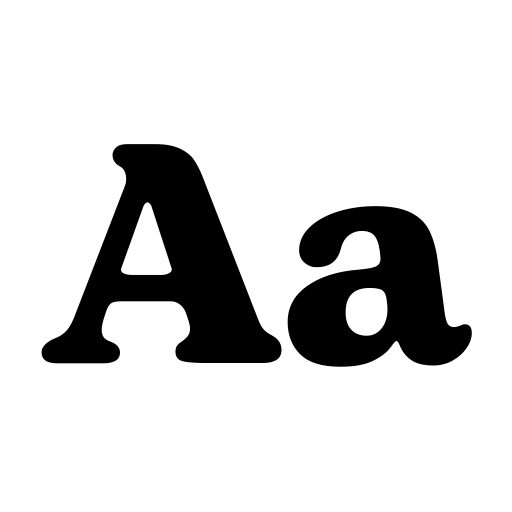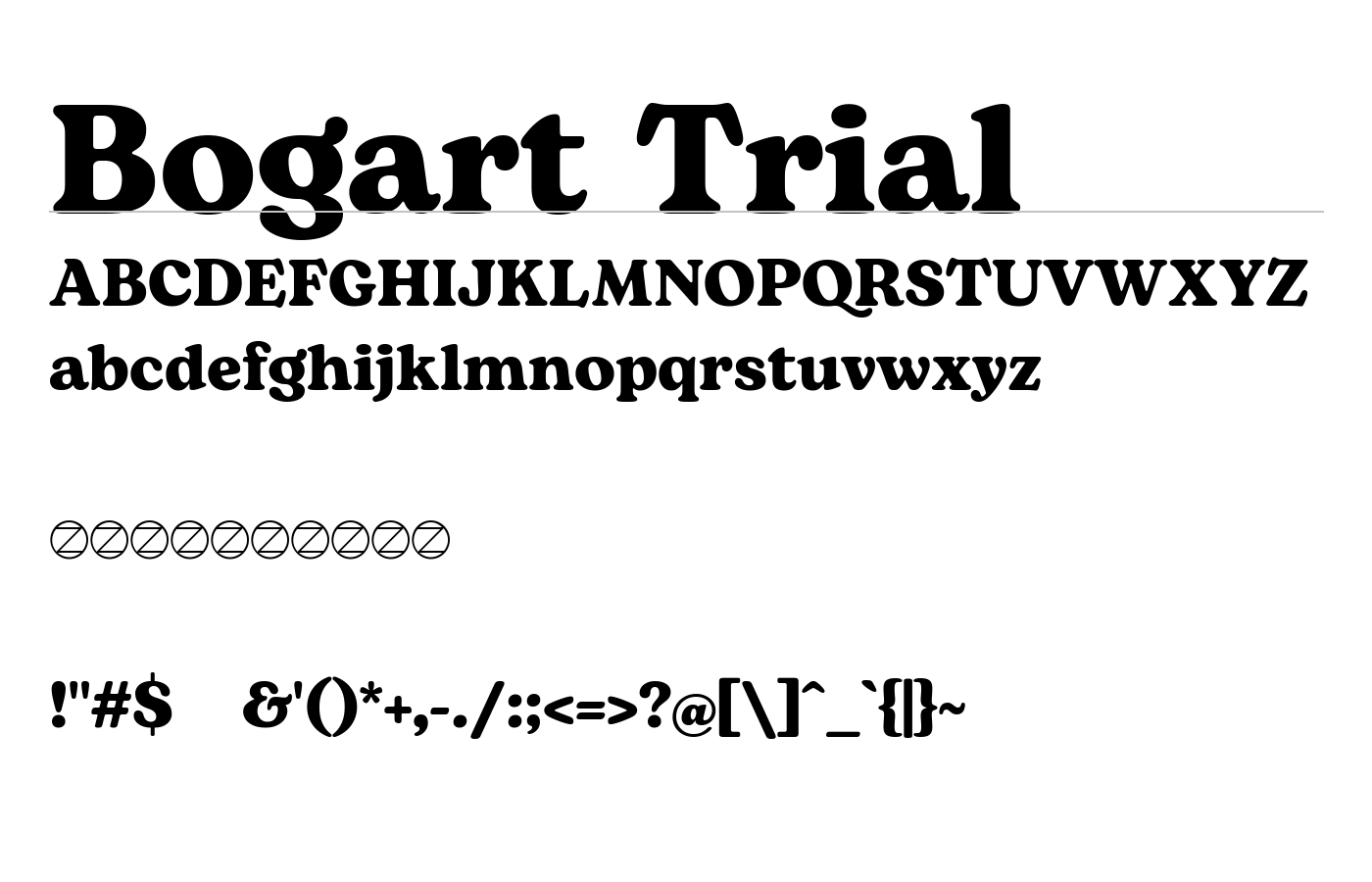
Bogart Trial is a bold, serif typeface with a strong presence and a slightly vintage feel, featuring thick, bracketed serifs and moderate stroke contrast that adds character while maintaining readability. Its rounded terminals and gently curved strokes give it a friendly yet authoritative tone, making it ideal for branding, headlines, and editorial projects seeking a classic but approachable look. This font works well where a sturdy, confident style is needed without sacrificing warmth or personality.
Bogart Trial Font
About Bogart Trial Font
| Designer | Francesco Canovaro, Andrea Tartarelli |